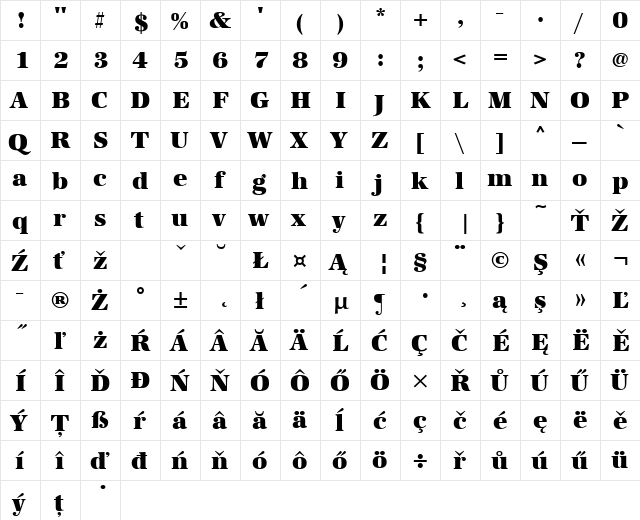
URWAntiquaTEEUltBol Regular Font Preview
URWAntiquaTEEUltBol Regular
Design Context for URWAntiquaTEEUltBol Typeface
URWAntiquaTEEUltBol offers clean, dependable letterforms without strong stylistic allegiance, making it a practical choice for designers who need flexibility.